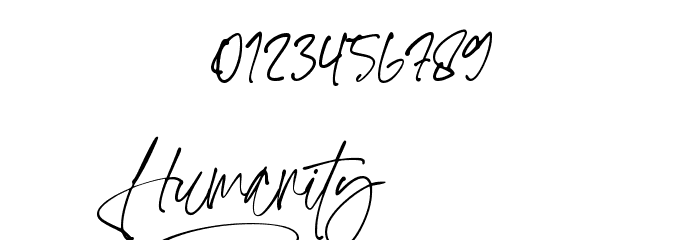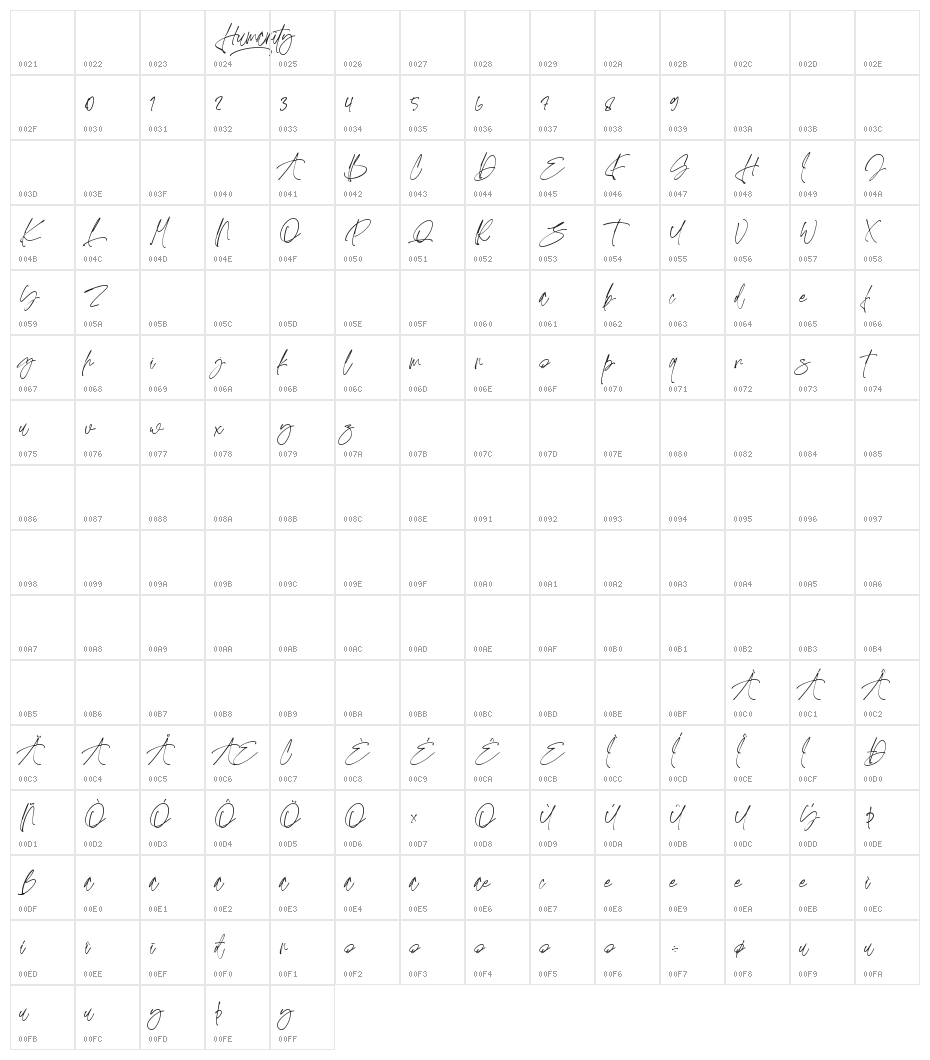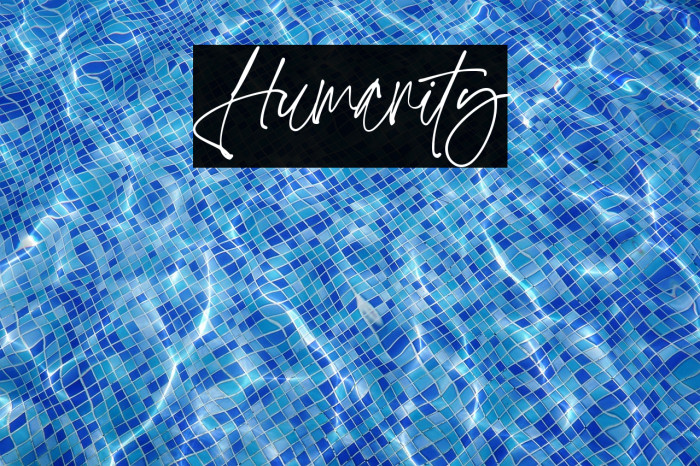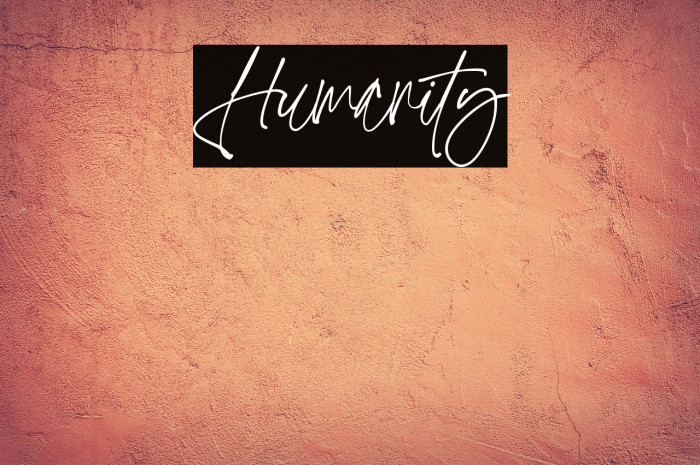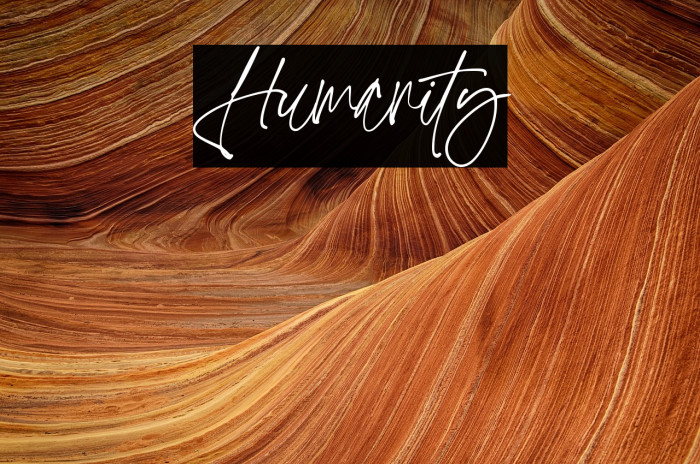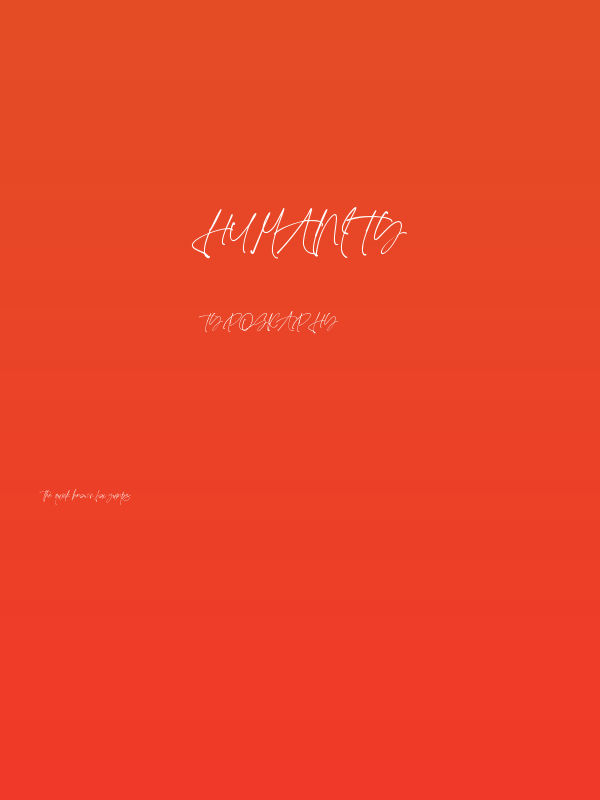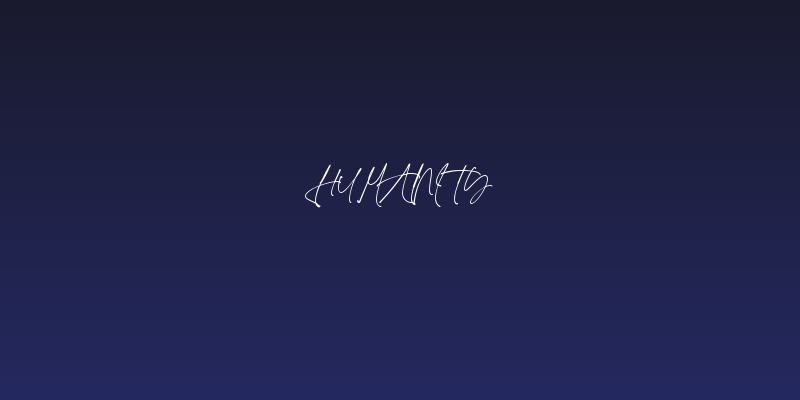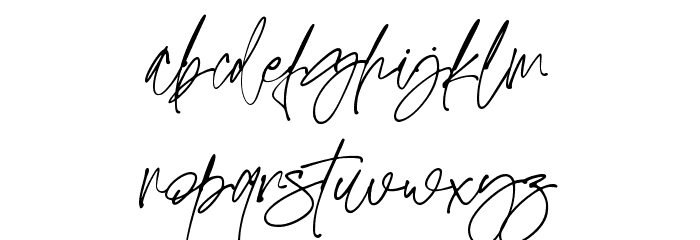
Humanity Font
Humanity Description
This font exudes a sense of elegance and fluidity, characterized by its cursive, handwritten style. The letters are connected with smooth, flowing lines, creating a sense of movement and grace. The strokes vary in thickness, adding a dynamic and lively feel to the text. The uppercase letters are bold and prominent, while the lowercase letters maintain a delicate and refined appearance. The numerals and special characters are consistent with the overall style, maintaining the same flowing and cursive characteristics. This font is perfect for projects that require a personal touch or a sense of sophistication.